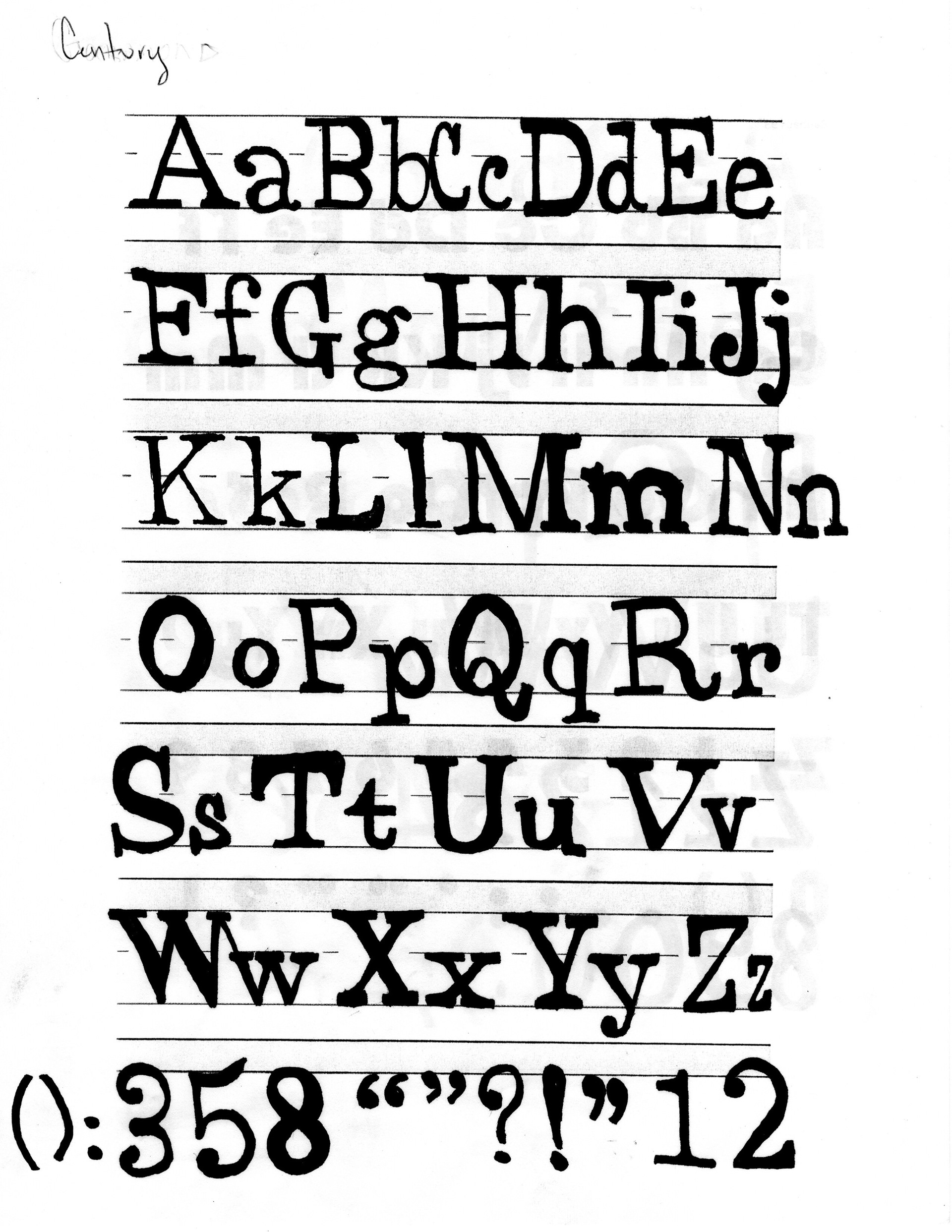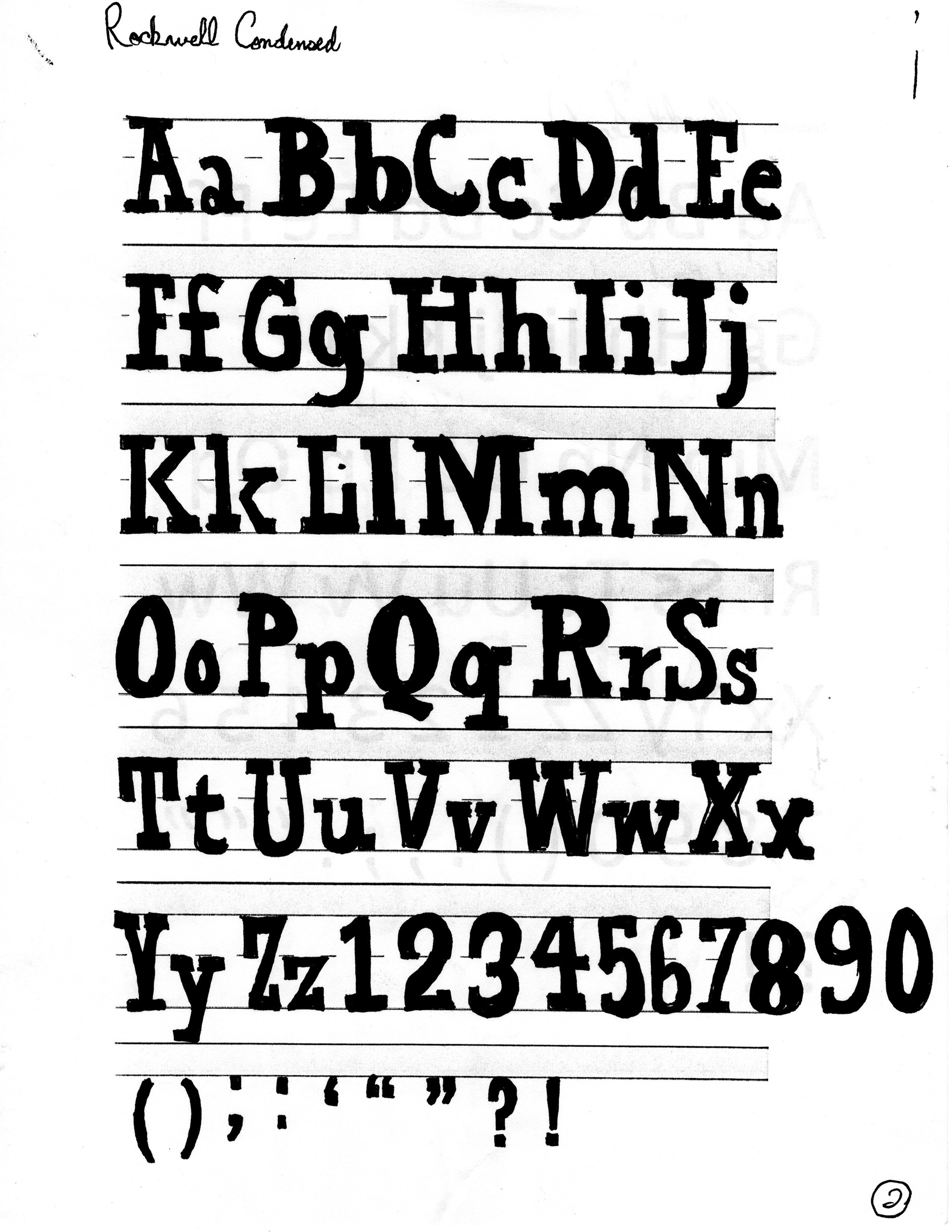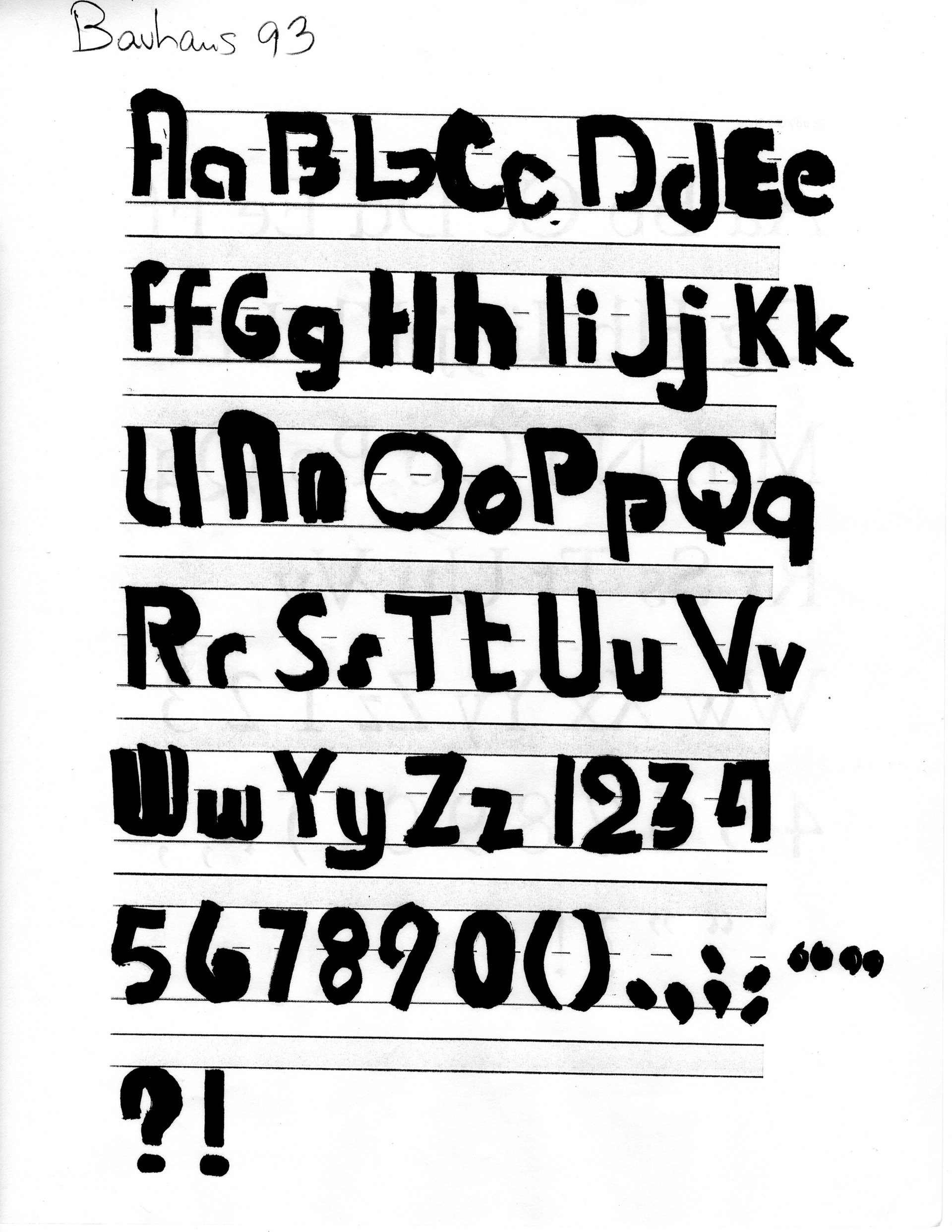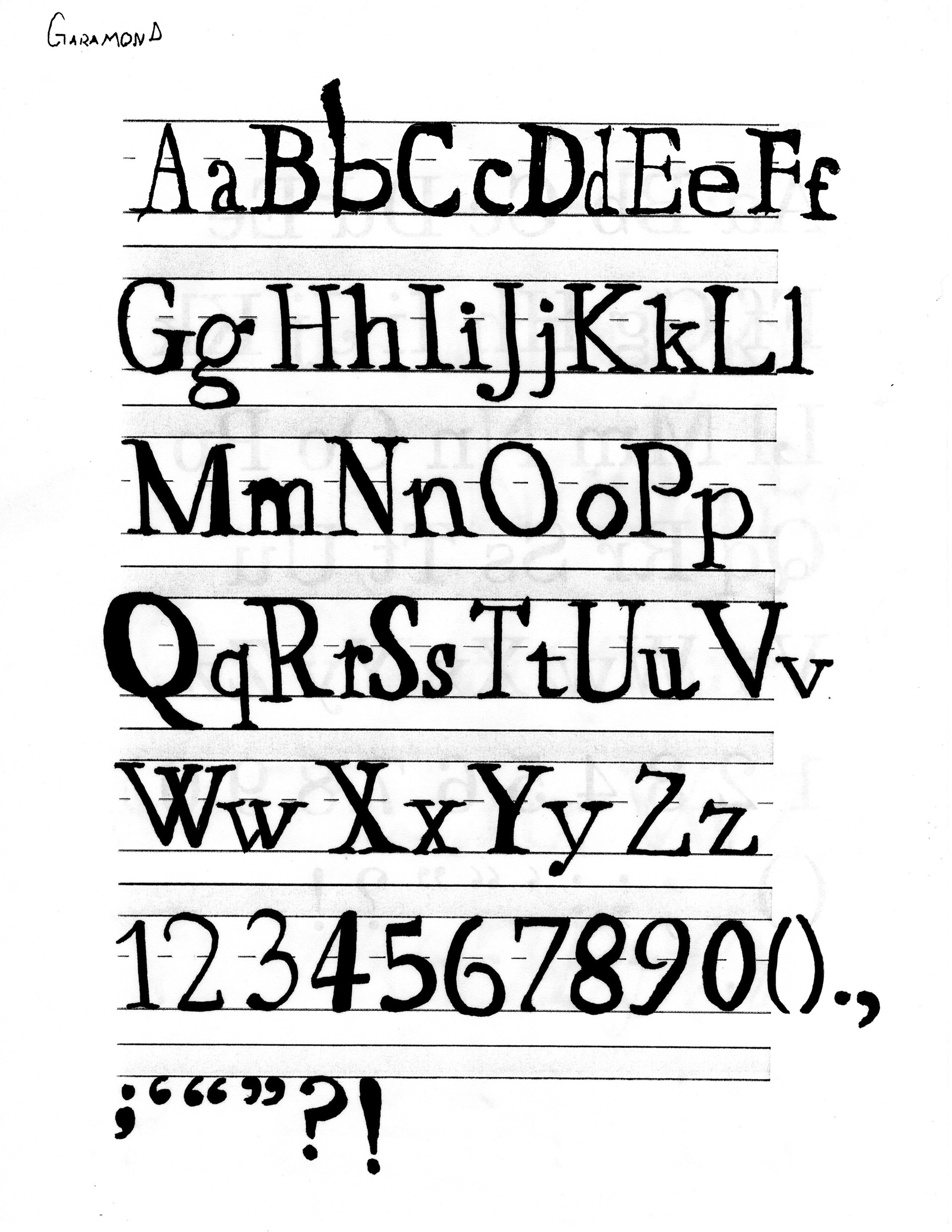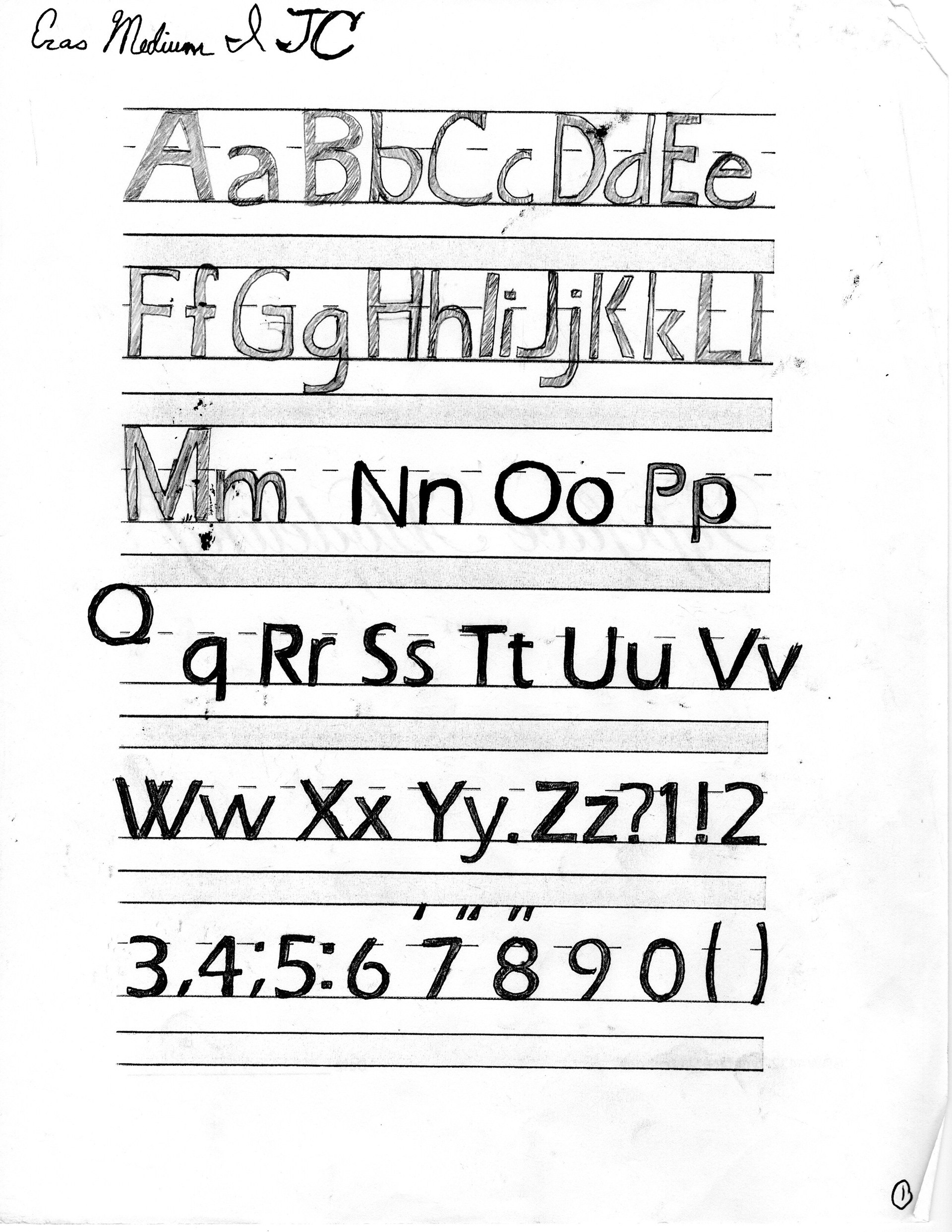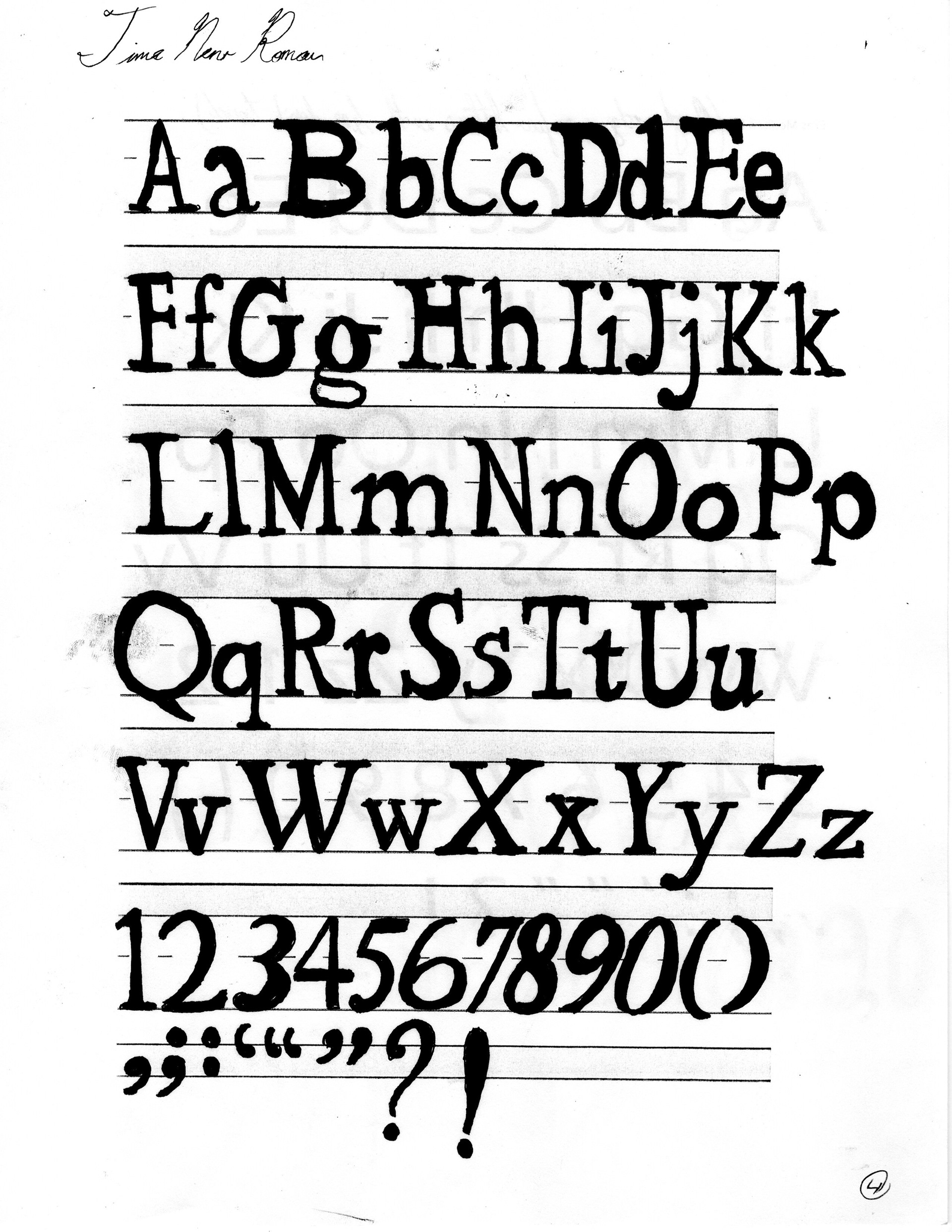
This sketchbook is designed to give designers an authentic, guided practice in observing and delineating a number of different styles of hand-drawn lettering styles to increase confidence, speed and accuracy, as they differentiate parts, weights and spacing requirements of individual type styles. Instructor: Michael Briere